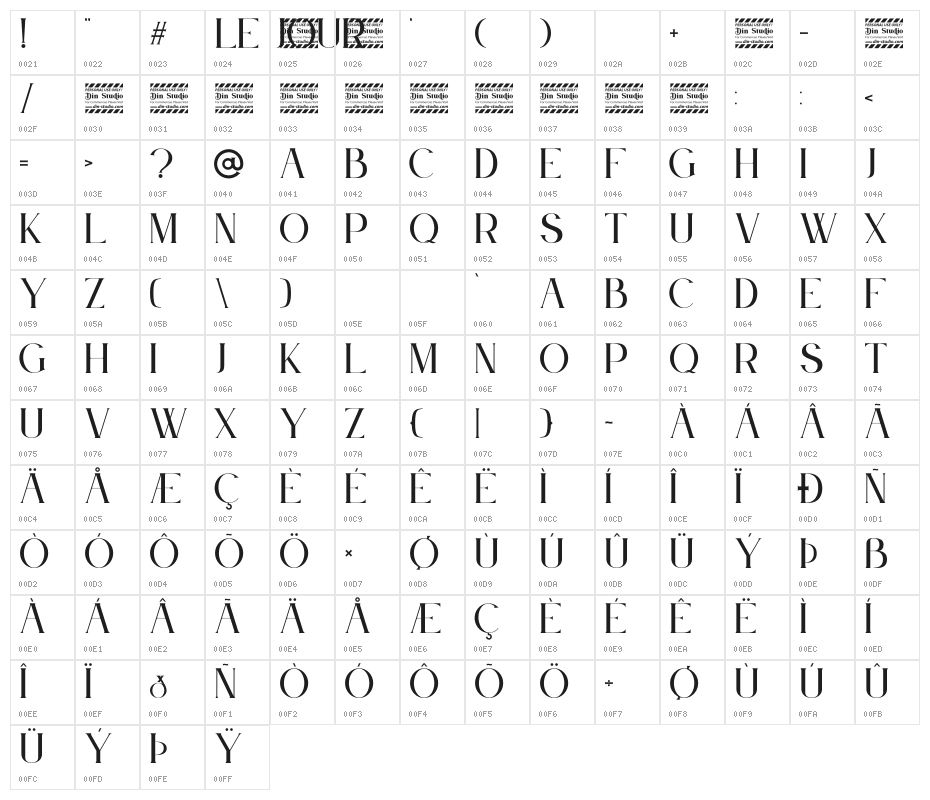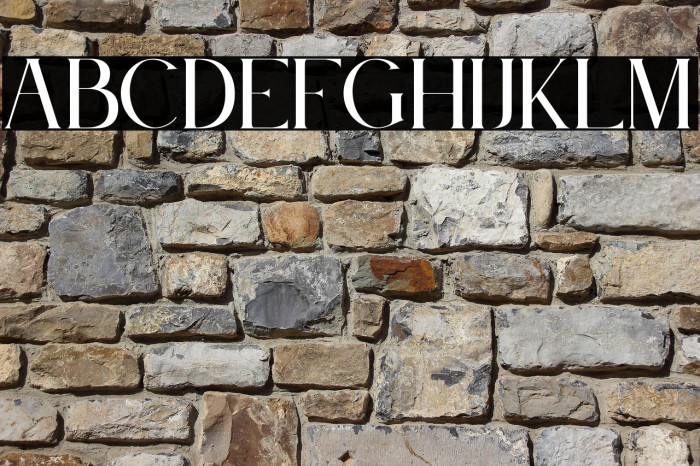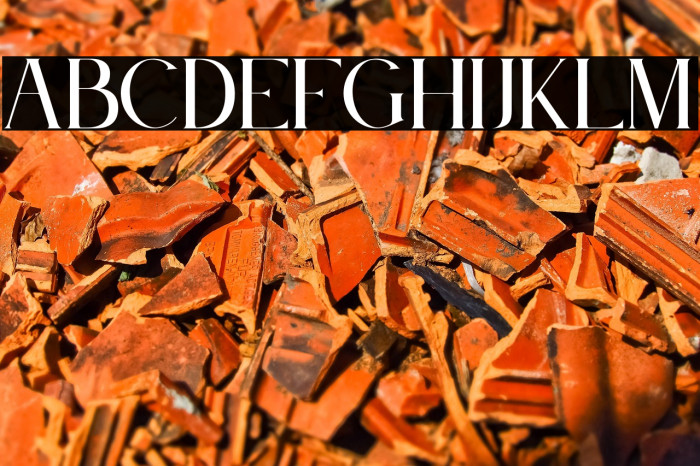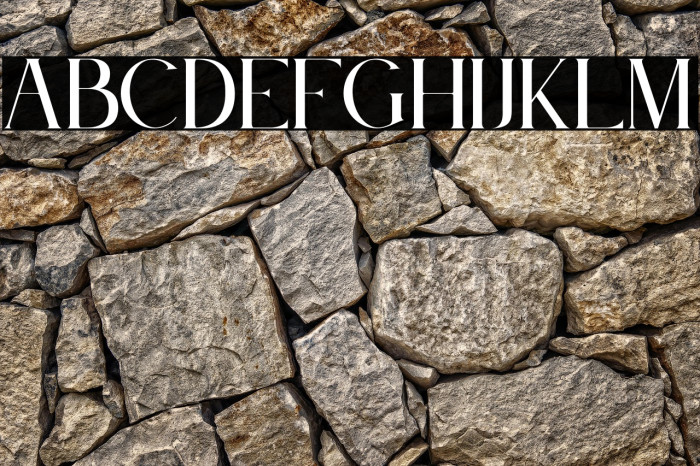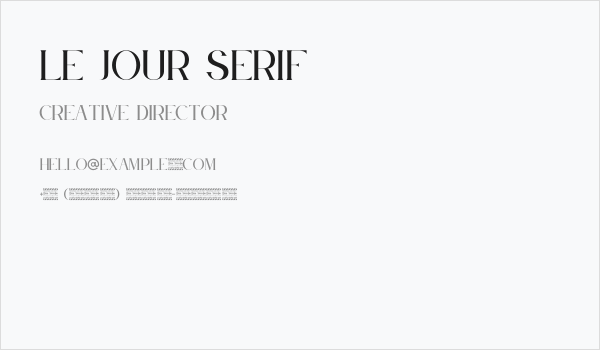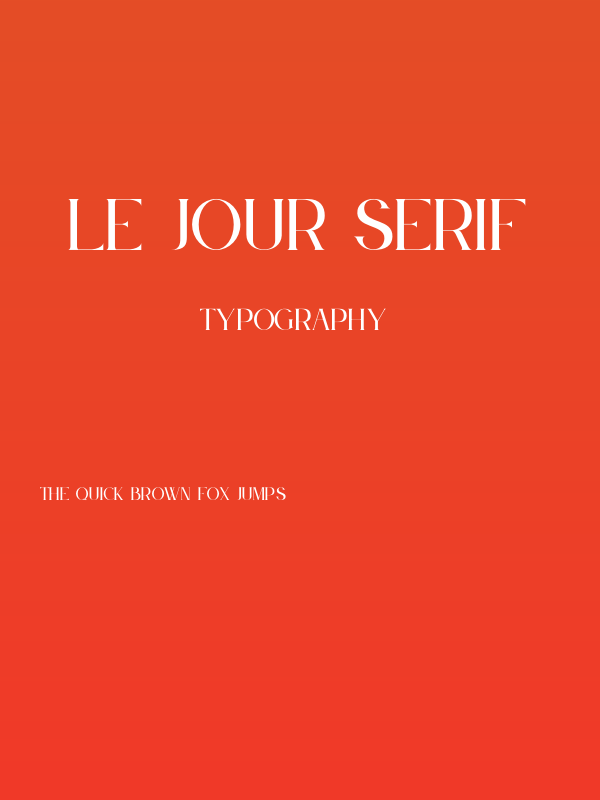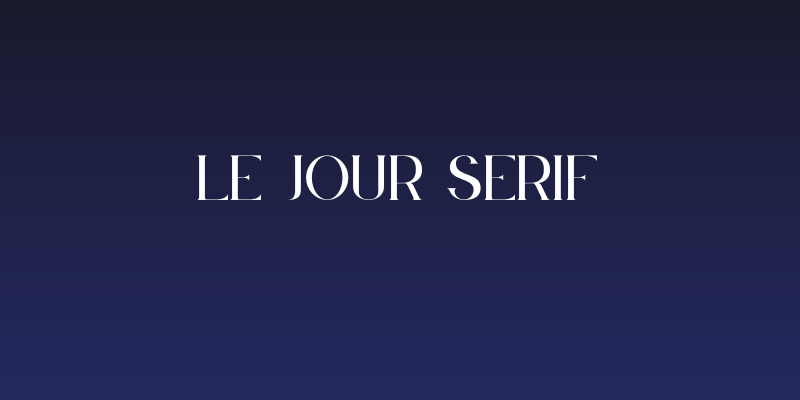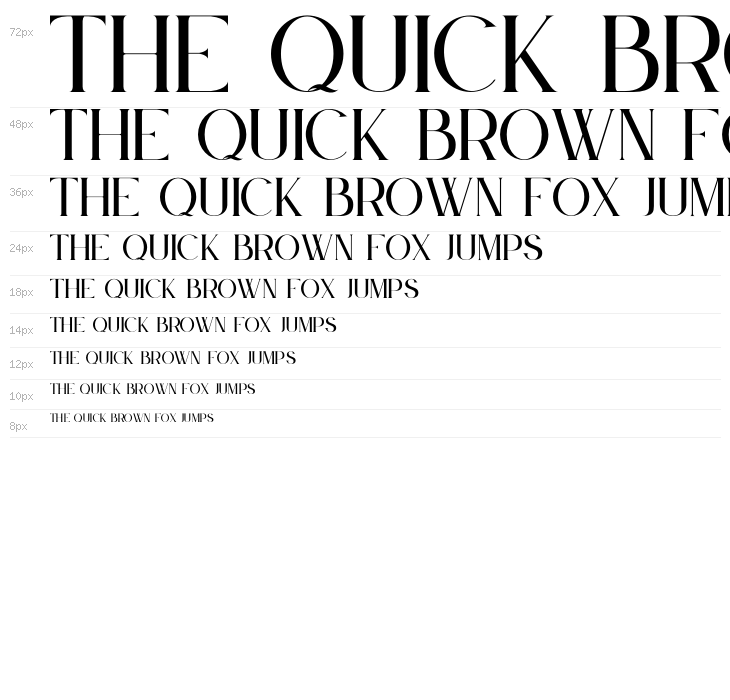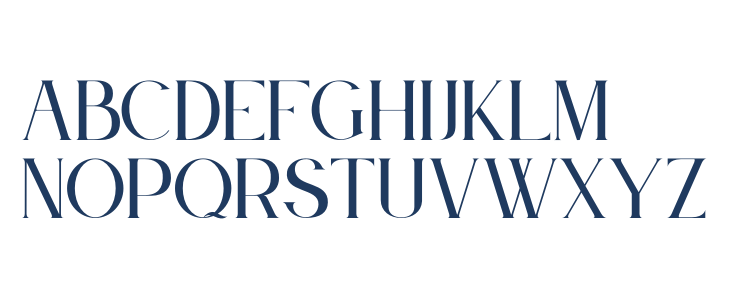
Le Jour Serif Font
Le Jour Serif Description
This font features a sophisticated serif style with high contrast between thick and thin strokes, giving it an elegant and refined appearance. The uppercase letters are tall and slender, while the lowercase letters maintain a consistent style with slightly more rounded forms. The serifs are sharp and pronounced, adding a classic touch to the overall design. This font is well-suited for projects that require a touch of sophistication and elegance, such as luxury branding, editorial design, and formal invitations. The spacing between characters is balanced, ensuring readability while maintaining its stylish look.
| Use Case | Headlines, Logos, Editorial Design |
| Proposed Projects | Ideal for luxury branding, editorial design, formal invitations, and high-end product packaging. |